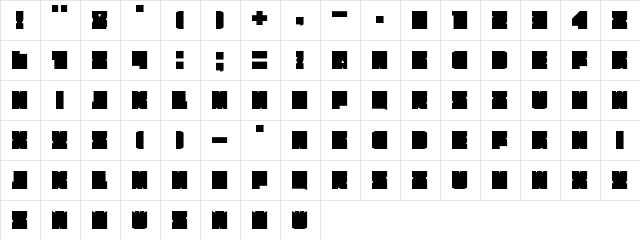
Bildhauer Kant Regular
| Foundry | Tobias Battenberg |
| Designer | Tobias Battenberg |
Design Context for Bildhauer Kant Typeface
Bildhauer Kant is a composed and adaptable typeface that performs quietly and consistently across a wide range of design contexts.